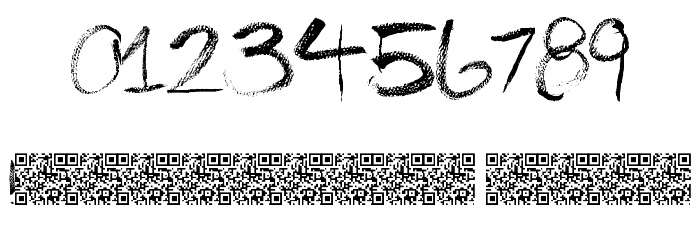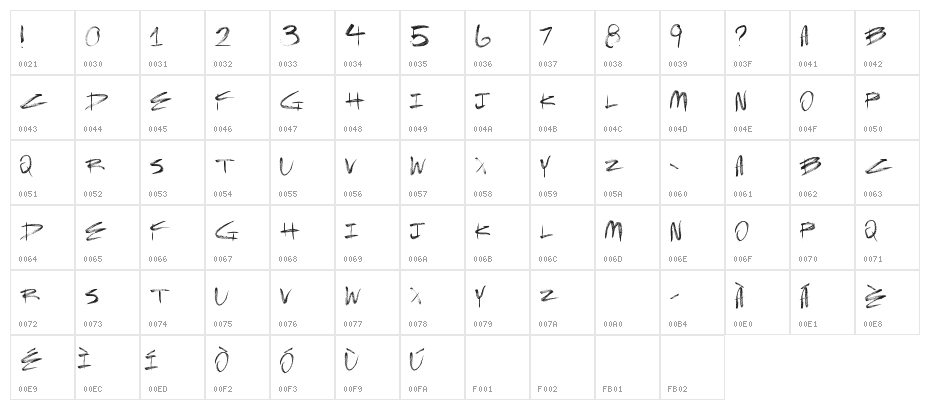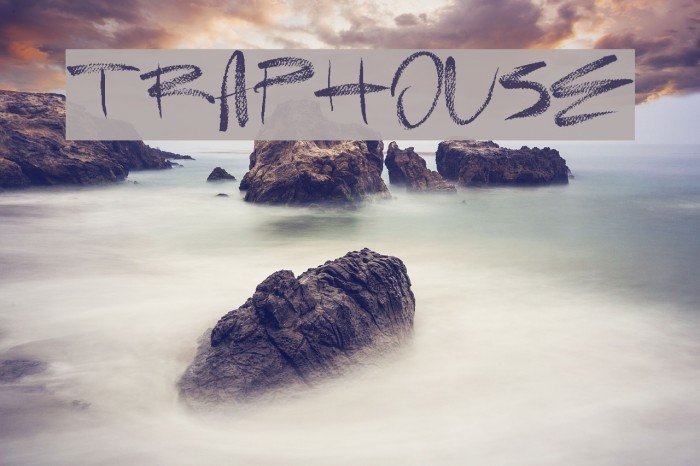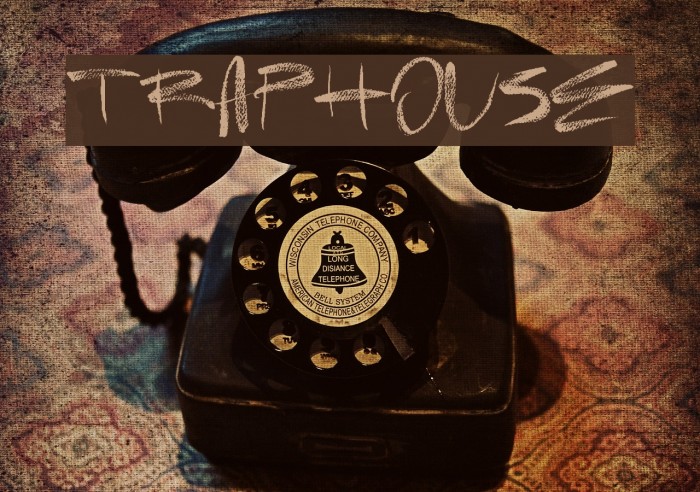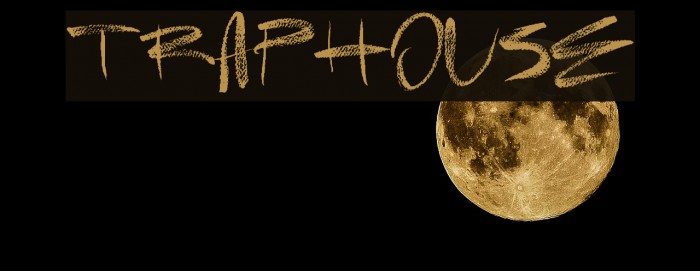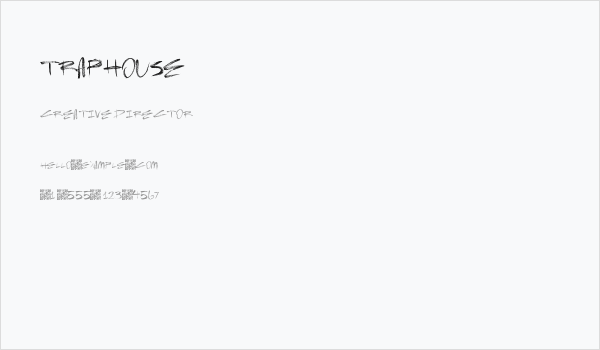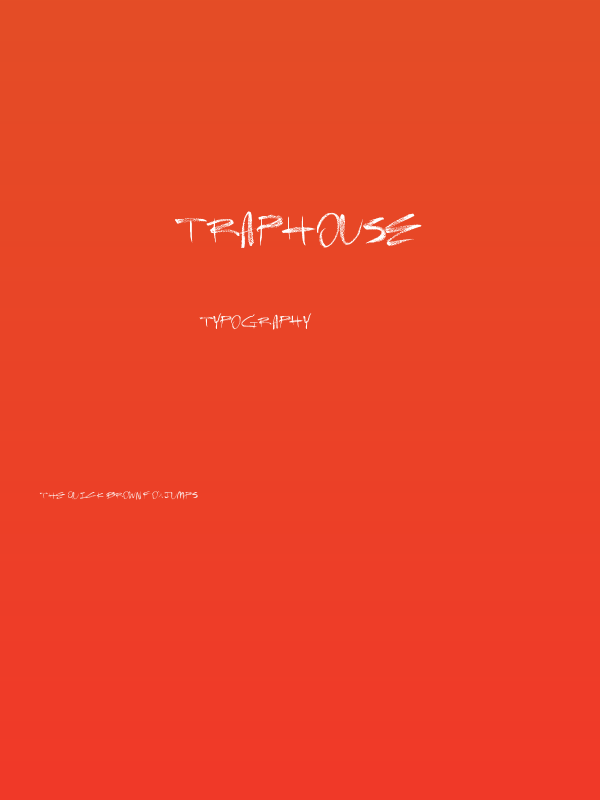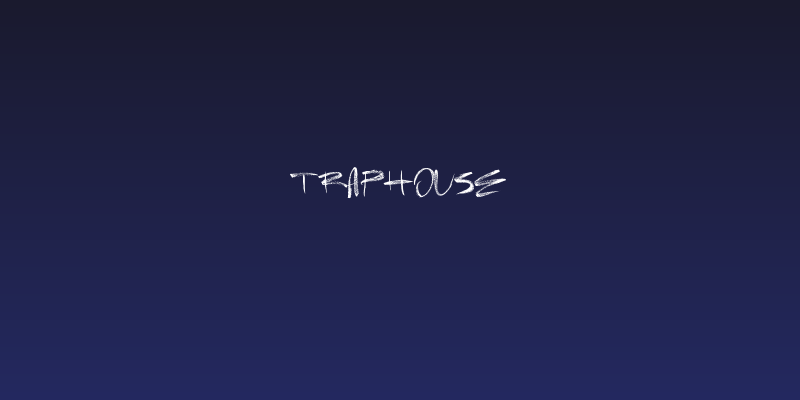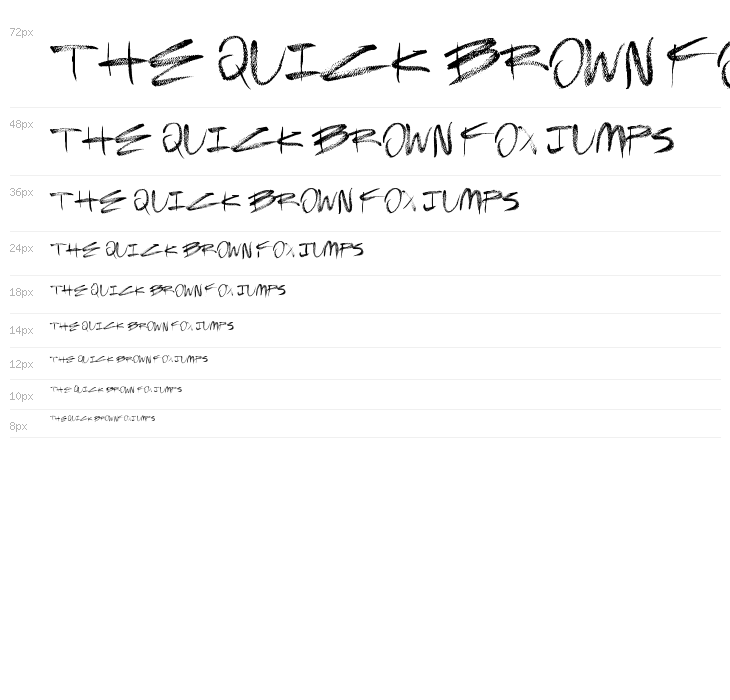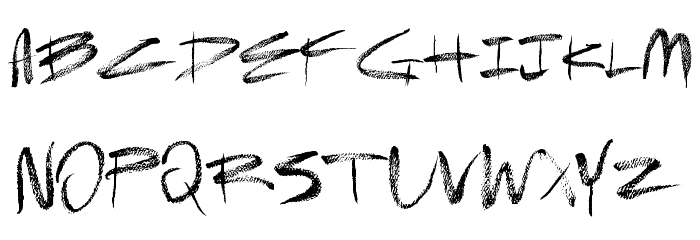
TrapHouse Font
TrapHouse Description
This font features a gritty, textured appearance reminiscent of graffiti or urban street art. The characters are bold and dynamic, with a rough, hand-drawn quality that gives them a sense of movement and energy. The strokes are uneven, with varying thicknesses that add to the raw, edgy feel. The uppercase and lowercase letters maintain a consistent style, while the numerals and special characters integrate seamlessly with the overall aesthetic. This font is ideal for projects that require a bold, rebellious look, such as music album covers, posters, or branding for edgy, contemporary products.
| Overall Style | Urban, Edgy, Graffiti |
| Proposed Projects | Ideal for music album covers, urban-themed posters, and edgy branding. |